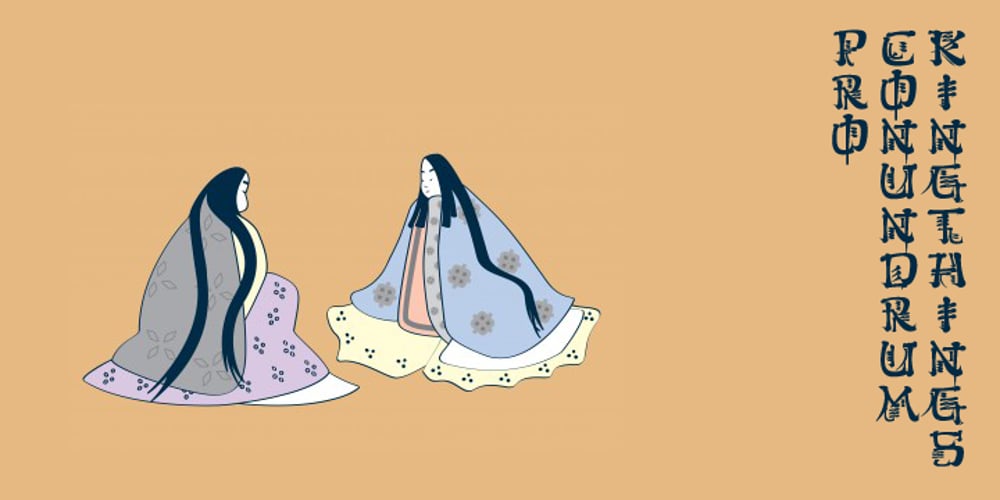
Kingthings Conundrum Pro Font Family was designed by Roger S. Nelsson, Kevin King and published by CheapProFonts. Kingthings Conundrum Pro contains 1 styles and family package options. This pearl by Kevin King was the best faux chinese font I’ve ever come over, and now it can be used for setting themed text and menus in many more languages! 🙂 Kevin King says: “I have said before you know – I can if I want to (Stamp! Scowl!). Cod Chinese of the worst kind, I wanted a “Chinese” font for a project and couldn’t find what I wanted. I painted this font with a Chinese brush and imported the resultant mess – it’s been a while since I did any Chinese calligraphy – add that to the fact that I don’t read or speak Chinese…” ALL fonts from CheapProFonts have very extensive language support: They contain some unusual diacritic letters (some of which are contained in the Latin Extended-B Unicode block) supporting: Cornish, Filipino (Tagalog), Guarani, Luxembourgian, Malagasy, Romanian, Ulithian and Welsh. They also contain all glyphs in the Latin Extended-A Unicode block (which among others cover the Central European and Baltic areas) supporting: Afrikaans, Belarusian (Lacinka), Bosnian, Catalan, Chichewa, Croatian, Czech, Dutch, Esperanto, Greenlandic, Hungarian, Kashubian, Kurdish (Kurmanji), Latvian, Lithuanian, Maltese, Maori, Polish, Saami (Inari), Saami (North), Serbian (latin), Slovak(ian), Slovene, Sorbian (Lower), Sorbian (Upper), Turkish and Turkmen. And they of course contain all the usual “western” glyphs supporting: Albanian, Basque, Breton, Chamorro, Danish, Estonian, Faroese, Finnish, French, Frisian, Galican, German, Icelandic, Indonesian, Irish (Gaelic), Italian, Northern Sotho, Norwegian, Occitan, Portuguese, Rhaeto-Romance, Sami (Lule), Sami (South), Scots (Gaelic), Spanish, Swedish, Tswana, Walloon and Yapese.